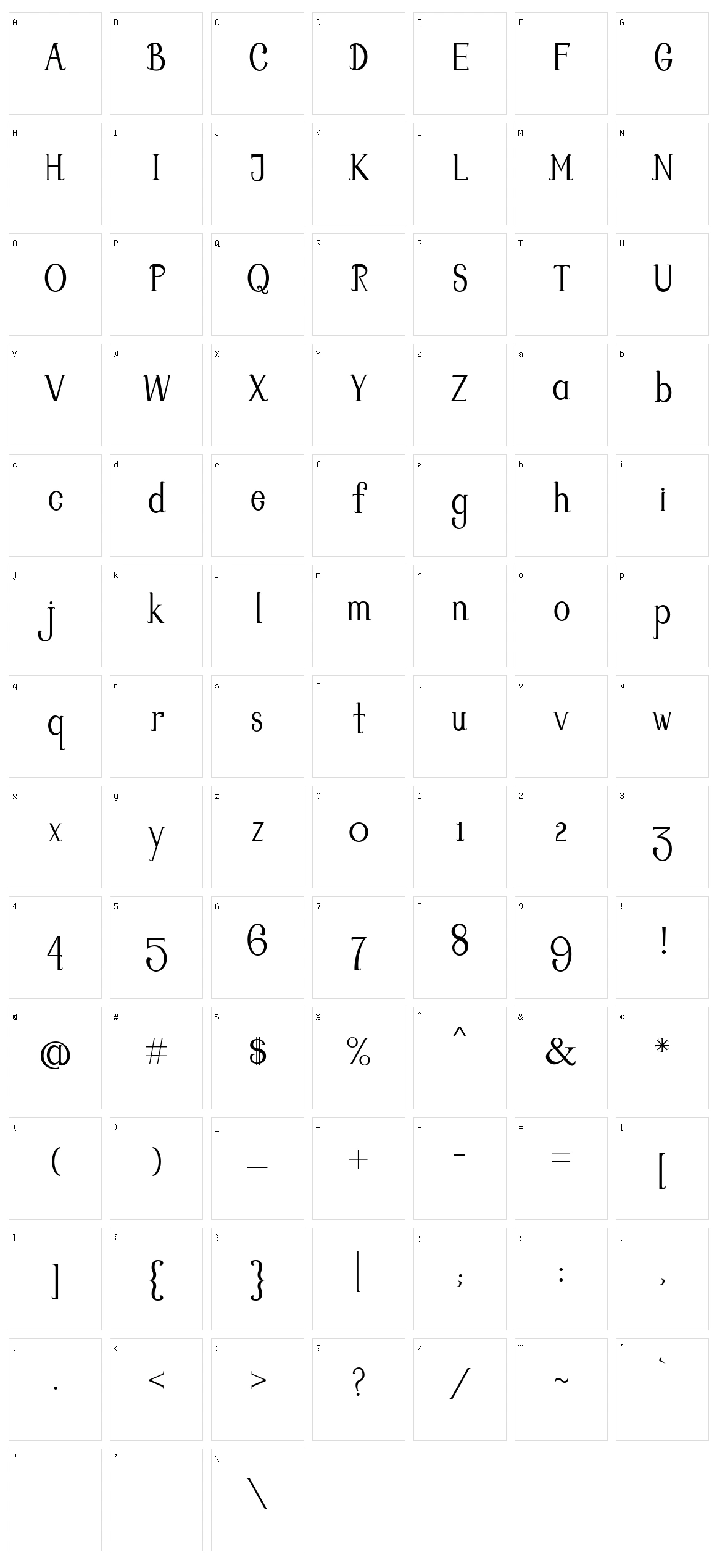
The free font Walking Around is carefully designed by Alejandra Bortoni, showcasing a thoughtful balance of creativity and usability and falls under the Serif font style. When you download the ZIP file, it contains only 32.72 KB of font files, making it lightweight and quick to download. Please review the license details below to understand permitted usage and distribution rights. If license information is not available, we recommend using this font for personal projects only or contacting the author directly for commercial usage permissions.